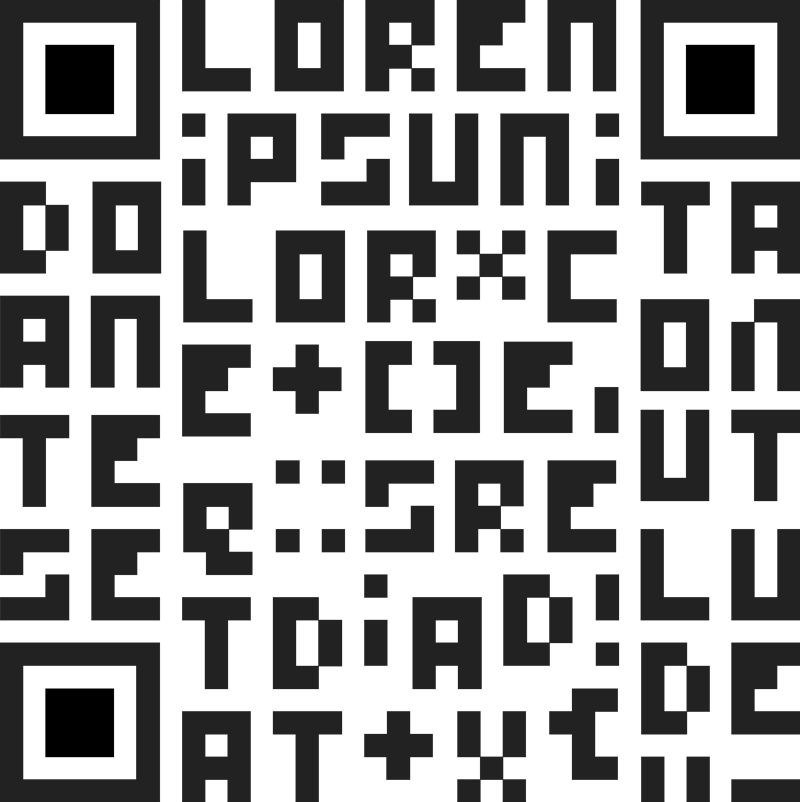
Font name: | Simplipixa |
Author: | Jo�o Cabral P�rigo |
Note by Jo�o Cabral P�rigo | |
Each letter is composed by up to 12 squares, with 3 squares of width and 4 of height. Some Characters get simplified to fit in the grid, characters like "M" or "W" are a little subjectified. Because this font don't have diagonals, it can be resized indefinitedly, if you use some software without anti-alias smoothing to destroy the edge of the font. It's a very good font to simulate some QR code, or when you need all letters with the same size. |